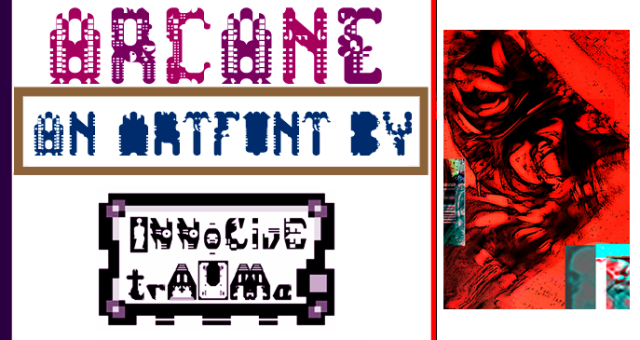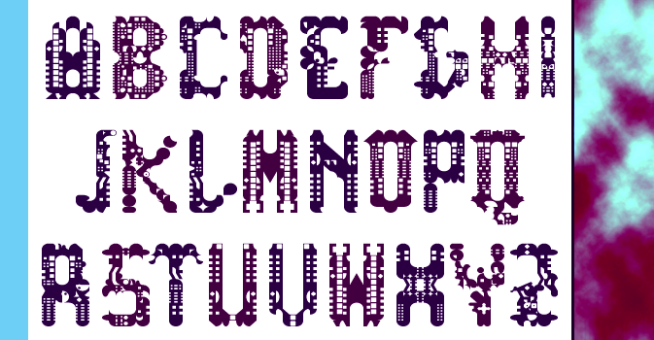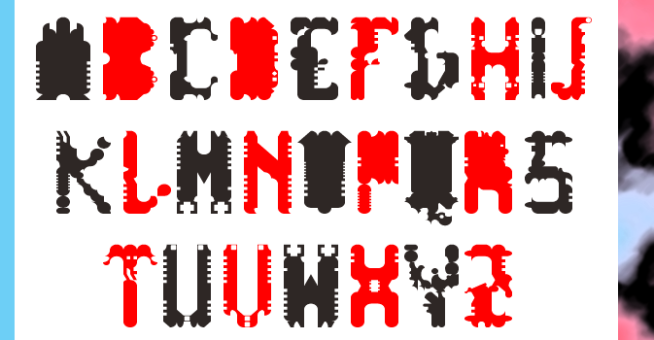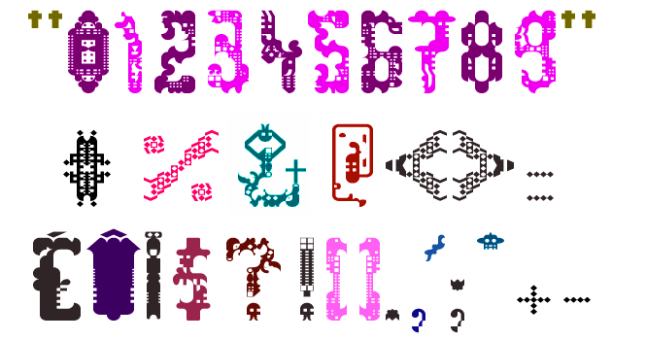
trAUMa 31 / Arcane
"Arcane", like all the "trAUMa" series, works at the frontier between Art & Type Design, Figuration & Abstraction, each font is a comprehensive world in which every glyph is a "living" entity. But put together they can produce your messages in the most accurate way.